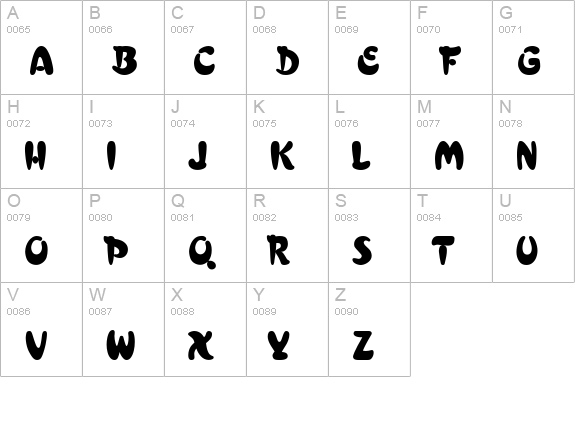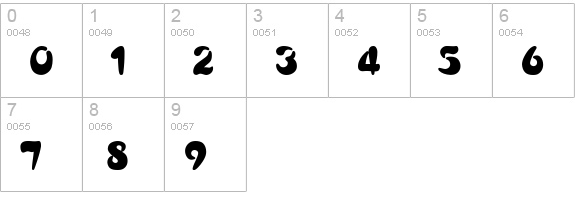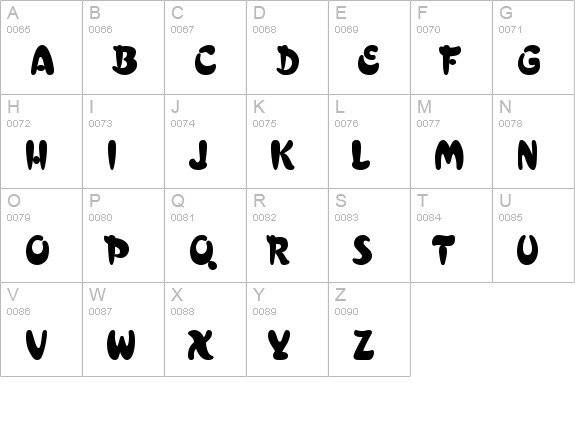
Meraviant Font Details
Introducing Meraviant font, a stunning and versatile typeface that is sure to elevate your design projects to new heights. With its elegant curves and modern aesthetic, Meraviant is perfect for a wide range of applications, from branding to editorial design. What sets Meraviant font apart is not only its exceptional design, but also the fact that it is available for free download at FontsMarket.com. Yes, you read that right - this high-quality font can be yours at no cost, making it accessible to designers of all levels. Whether you're working on a logo, website, or print materials, Meraviant font will bring a touch of sophistication and style to your projects. Don't miss out on this fantastic opportunity to enhance your designs with Meraviant - download it for free today at FontsMarket.com and let your creativity shine!